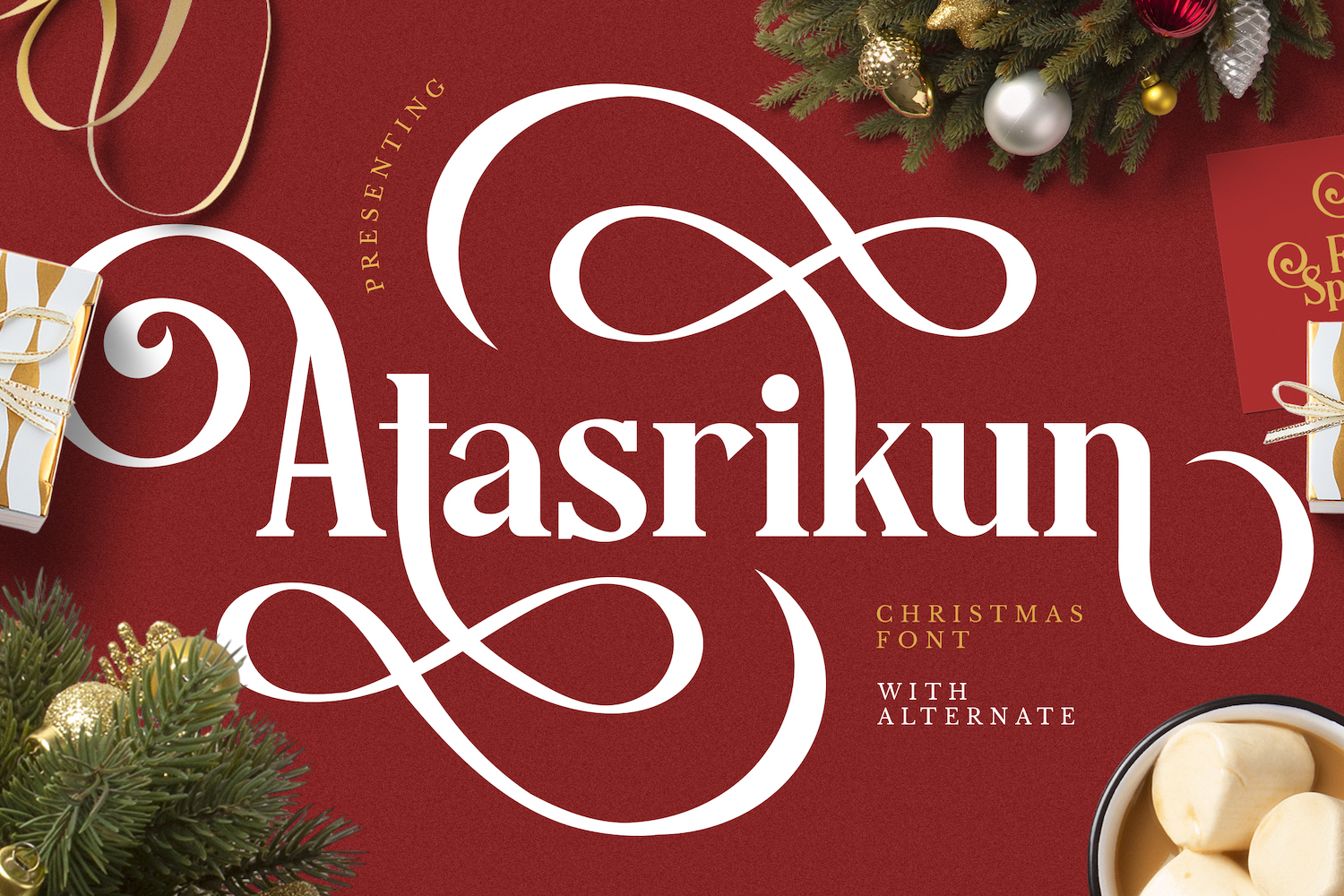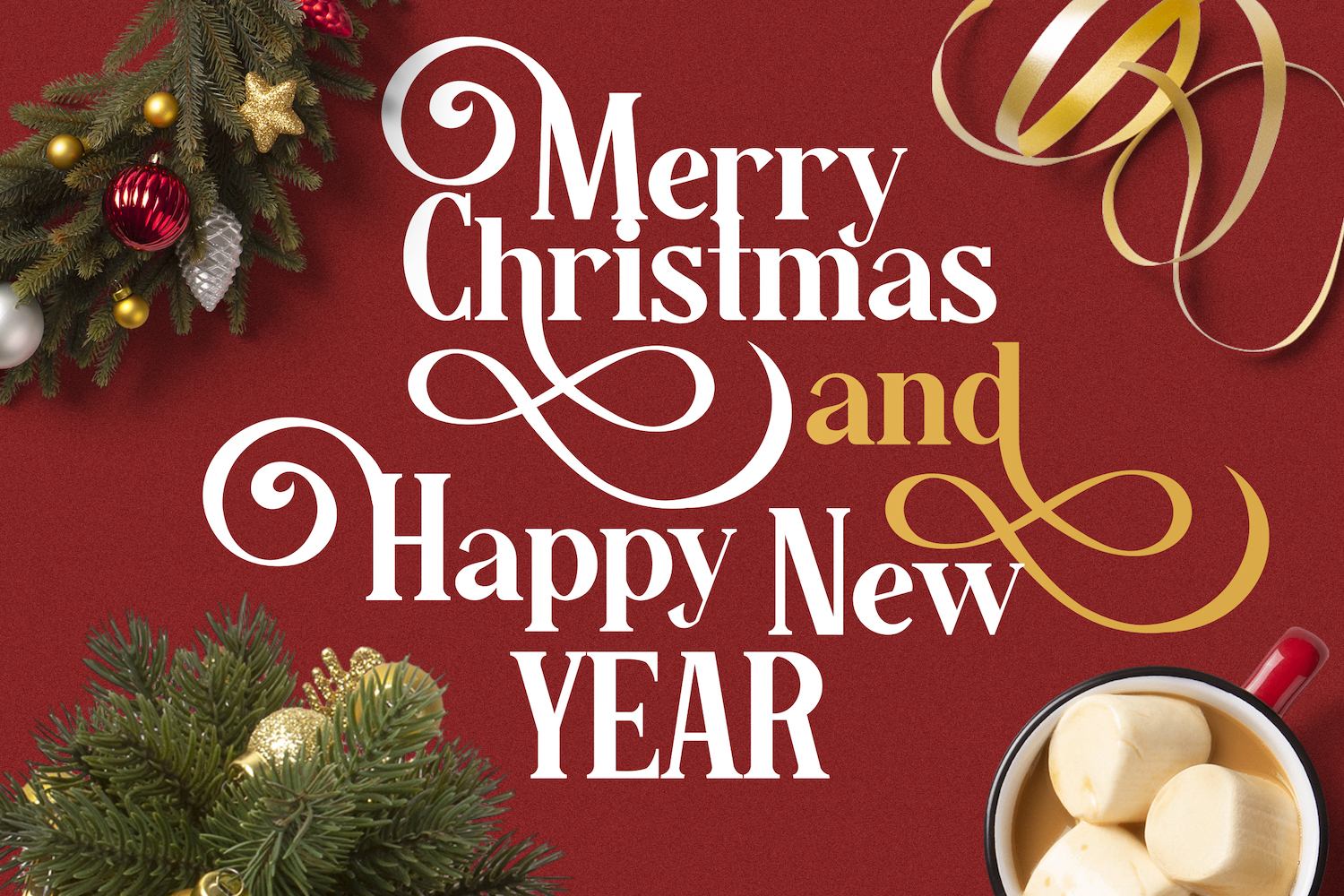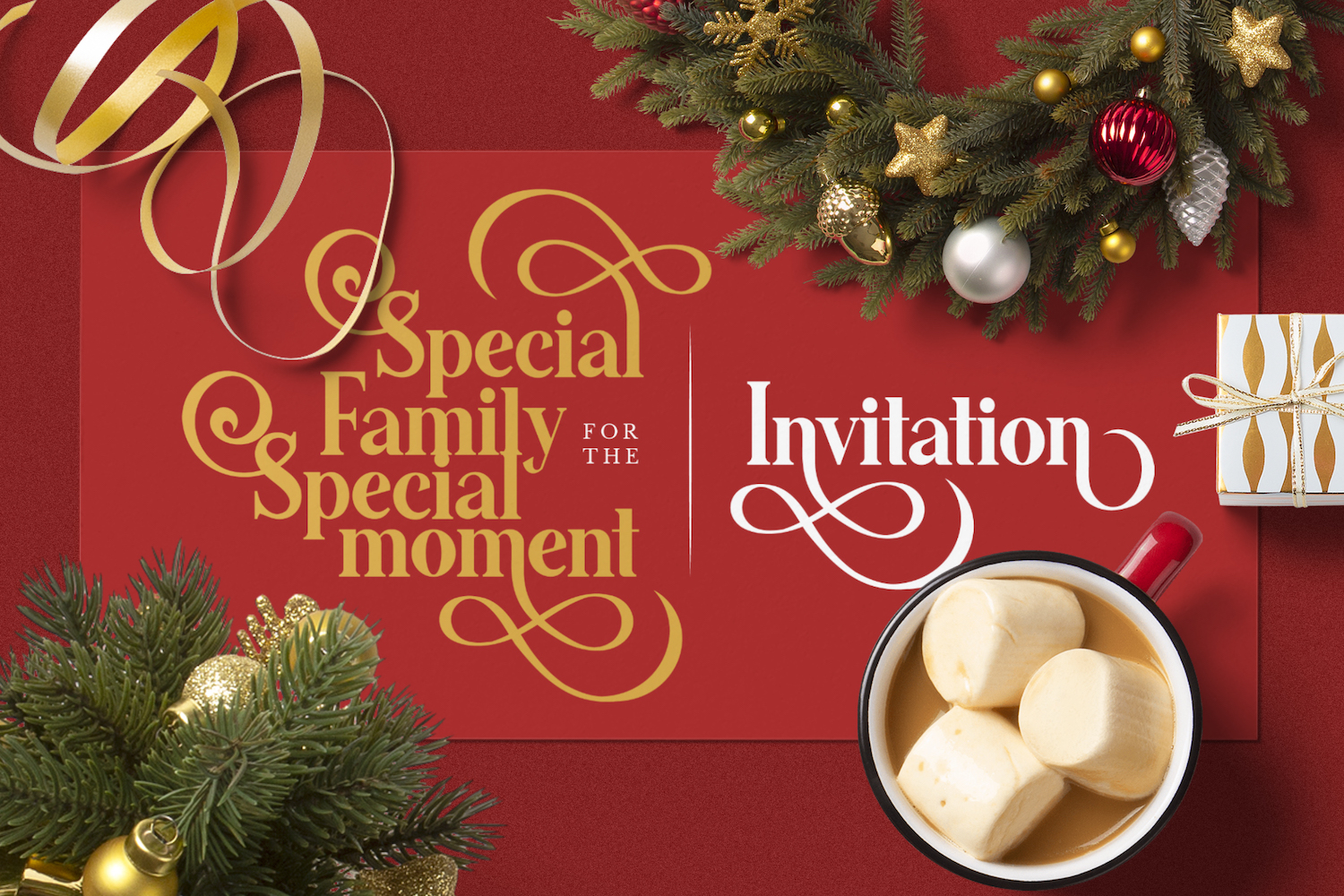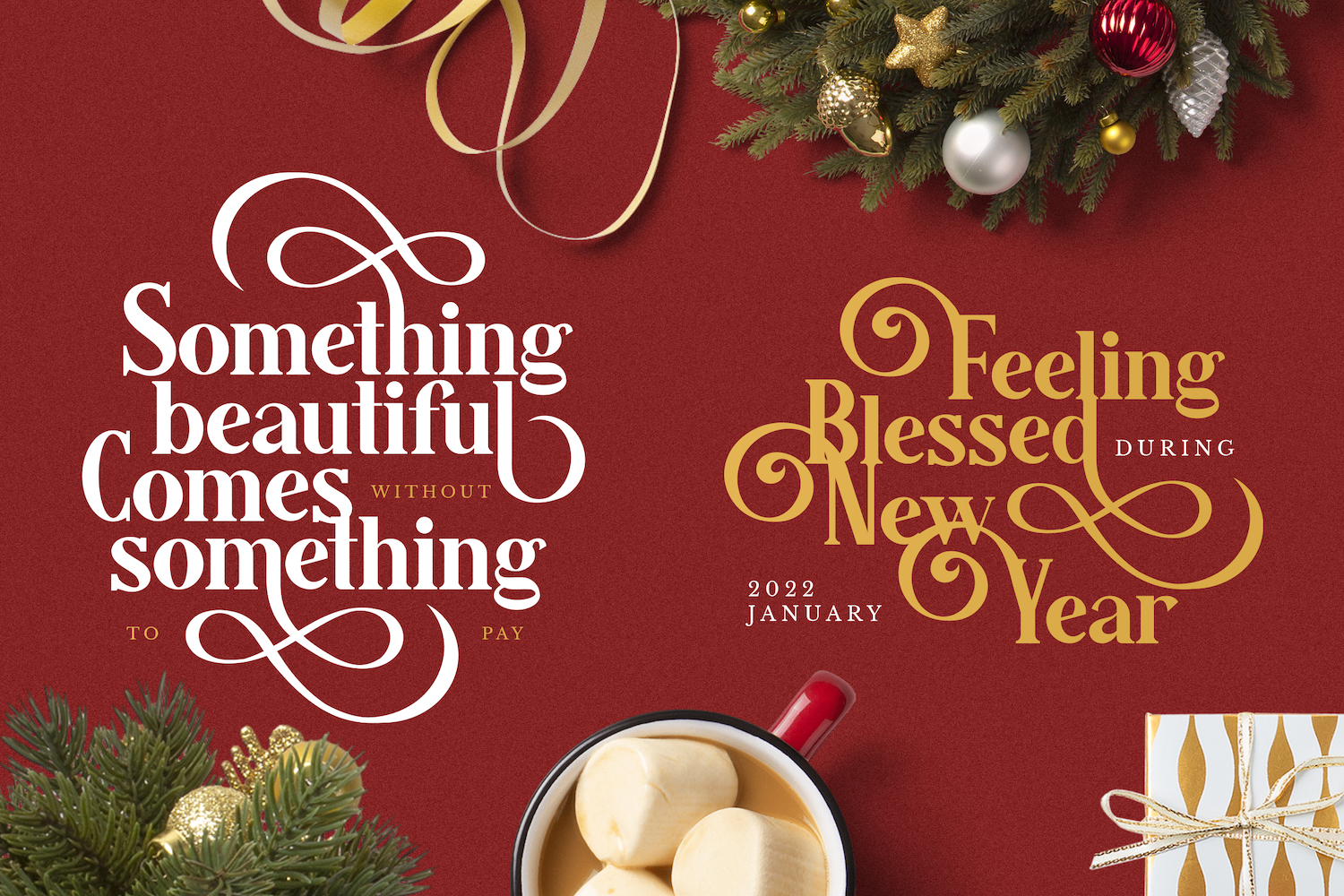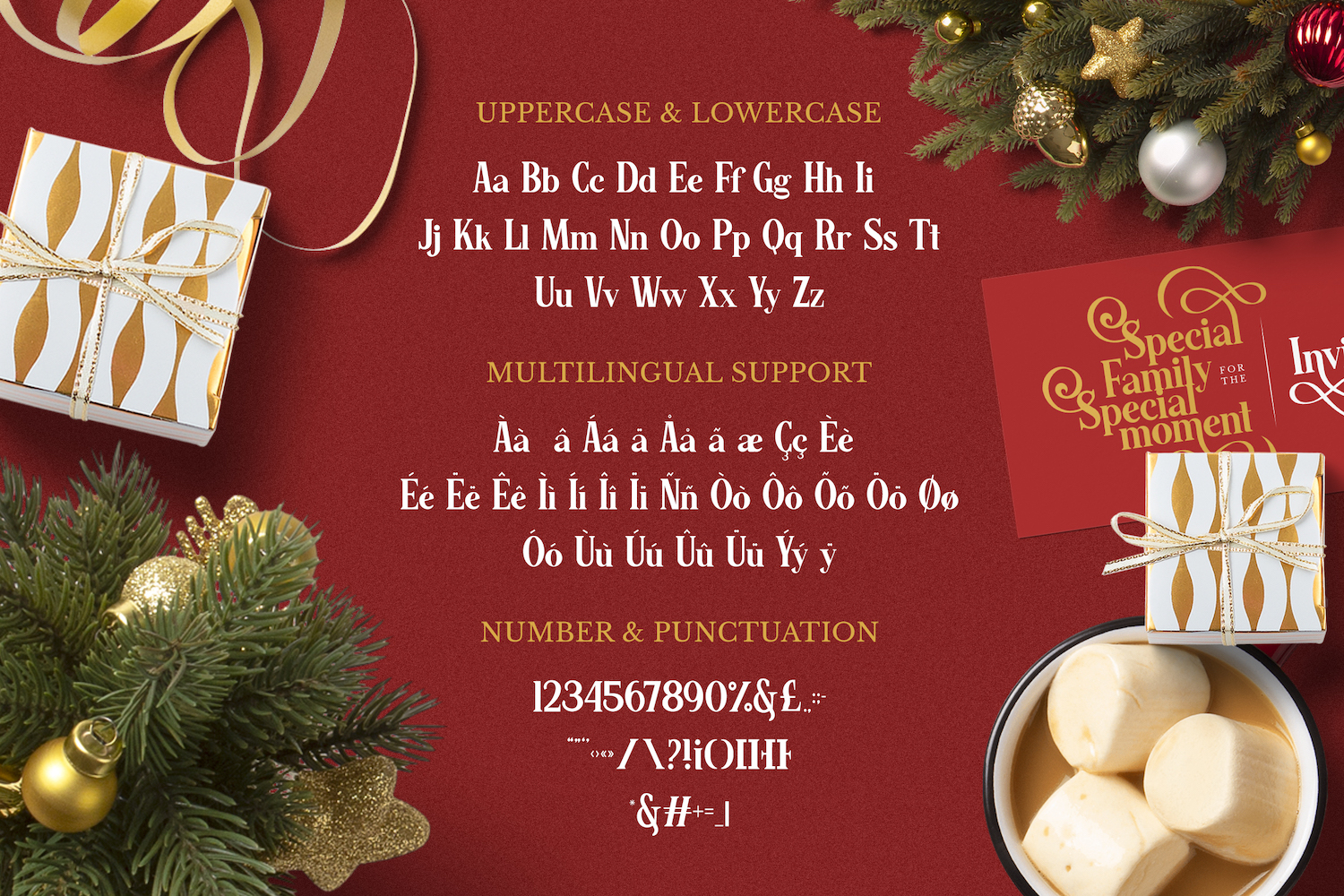
Atasrikun is an elegant Christmas serif font with a refined and classic touch, designed to elevate your festive projects with timeless beauty. Featuring high-contrast strokes, delicate serifs, and graceful swashes, this font is perfect for greeting cards, invitations, branding, and editorial design. The luxurious alternate characters add a sense of charm and sophistication, making every word feel special.
Crafted with versatility in mind, Atasrikun includes multilingual support and a wide range of punctuation and symbols. Its sophisticated curves and festive flair make it the ideal choice for creating stylish holiday compositions, decorative titles, and celebratory prints. Whether you’re crafting heartfelt messages or eye-catching designs, Atasrikun delivers both elegance and impact.
Atasrikun